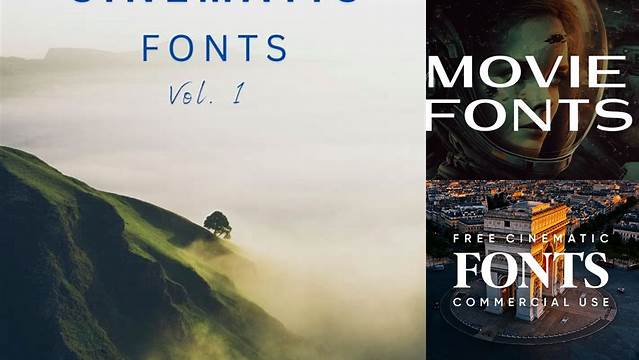
Free Cinematic Fonts Generator: Create Movie Magic!
Hey guys! Ever wanted to give your projects that Hollywood feel? You know, that epic movie title vibe? Well, you're in the right place! We're diving deep into the world of cinematic fonts and how you can snag them for free. Whether you're a budding filmmaker, a graphic designer, or just someone who loves cool typography, this guide is your ticket to creating visual masterpieces. Let's get started and unlock the secrets to stunning cinematic fonts that will elevate your work!
1. What are Cinematic Fonts?
Okay, let's kick things off with the basics. What exactly are cinematic fonts? Think about your favorite movie posters and opening credits. Notice those fonts? They're usually bold, dramatic, and instantly recognizable. Cinematic fonts are designed to evoke the feeling of the movies – think action, suspense, romance, you name it! They often have unique characteristics like strong serifs, elegant curves, or even a futuristic flair. The main goal of cinematic fonts is to grab attention and set the tone for whatever visual you are working on. They’re designed to communicate an emotion, build anticipation, and immerse the viewer in a visual story. Whether it's the bold, authoritative feel of a thriller's title or the graceful elegance of a romantic drama's credits, choosing the right cinematic font is crucial. A cinematic font isn't just about aesthetics; it's a tool that can significantly enhance the visual storytelling of your project. By using a well-chosen font, you can set the mood, emphasize key themes, and create a lasting impression on your audience. So, whether you're designing a movie poster, creating a video intro, or even working on a presentation, understanding the power of cinematic fonts can help you create more impactful and professional-looking visuals.
2. Why Use Cinematic Fonts?
So, why should you even bother using cinematic fonts? Well, imagine trying to make a movie poster with Comic Sans. Cringe, right? The right font can make all the difference! Cinematic fonts add a professional touch, enhance the visual appeal, and help you communicate the tone and genre of your project. Using cinematic fonts can dramatically elevate your creative work by adding a layer of professionalism and visual appeal that standard fonts simply can't match. Think about it: a well-chosen font can evoke a specific mood or feeling, instantly setting the tone for your audience. For instance, a bold, strong font might be perfect for an action movie poster, conveying power and excitement, while an elegant, flowing font might be better suited for a romantic drama, suggesting grace and sophistication. Choosing the right cinematic font is like selecting the perfect musical score for a scene; it enhances the overall experience and creates a more immersive world for the viewer. Beyond aesthetics, cinematic fonts also play a crucial role in branding and recognition. Just like a distinctive logo, a unique font can become synonymous with your project, helping it stand out and leave a lasting impression. Whether you're designing a film poster, creating a video game title, or even working on a marketing campaign, the right cinematic font can help you communicate your message more effectively and make your work truly memorable.
7. Behance: Creative Community Fonts
Behance is a social media platform for creatives, and sometimes designers share free fonts as part of their portfolios. It's a great place to find unique and stylish cinematic fonts, but remember to check those licenses! Behance is more than just a social media platform; it’s a vibrant community where designers and creatives from around the world showcase their work. This makes it an excellent place to discover not only inspiration but also unique design assets, including free fonts. Many designers on Behance generously share their creations as part of their portfolios, offering a diverse range of typefaces that you won’t find anywhere else. This is particularly valuable if you're searching for cinematic fonts with a distinctive and artistic flair. However, as with other font resources, it’s crucial to pay close attention to the licensing terms associated with each font on Behance. While many designers offer fonts for free personal use, commercial use may require a separate license or permission. When browsing Behance for cinematic fonts, it’s helpful to use keywords such as “font,” “typeface,” and “typography” in your search. You can also filter by project type to specifically find font design projects. Pay attention to the descriptions and comments, as designers often provide details about the font’s usage rights and any specific requirements. Fonts that are inspired by classic movie posters, vintage film titles, or iconic cinematic styles are often popular choices among Behance’s free offerings. By engaging with the Behance community and carefully reviewing the licensing information, you can uncover a treasure trove of free and stylish cinematic fonts to elevate your design projects.
8. Understanding Font Licenses
Okay, this is super important. Before you use any font, you need to understand the license. Most free fonts come with specific terms, and you need to respect them. Personal use means you can use the font for your own projects, but not for anything that makes money. Commercial use means you can use it for commercial projects, like a movie poster you're selling. Some licenses may also have other restrictions, like not being able to embed the font in a document or modify it. Understanding font licenses is a crucial aspect of using typefaces legally and ethically. Font licenses are legal agreements that outline how a font can be used, and they vary widely depending on the designer or foundry. Ignoring these licenses can lead to copyright infringement, which can have serious consequences, including legal action and financial penalties. There are two primary types of font licenses: personal use and commercial use. Personal use licenses typically allow you to use the font for non-profit projects, such as school assignments, personal websites, or hobby projects. Commercial use licenses, on the other hand, permit you to use the font in projects that generate revenue, such as movie posters, advertisements, or product packaging. Many free fonts come with personal use licenses, which means you cannot use them in any project where you intend to make money. It's essential to carefully read the license agreement to understand the specific terms and conditions. This includes restrictions on embedding the font in digital documents, modifying the font, or redistributing it. Some commercial licenses may also have limitations, such as a maximum number of users or a specific term of use. By taking the time to understand font licenses, you can ensure that you are using typefaces legally and ethically, avoiding potential legal issues and supporting the designers who create these valuable resources. Whether you’re downloading free cinematic fonts or purchasing a premium typeface, always make licensing a priority.
9. Personal Use vs. Commercial Use
Let's break this down further. Personal use is for fun projects that don't make money, like a birthday invitation for a friend. Commercial use is for anything you're selling or using to promote a business, like a movie poster or a website for your company. Knowing the difference is key to staying out of legal trouble. The distinction between personal use and commercial use is fundamental when it comes to font licensing and usage rights. This understanding dictates whether you can legally use a particular font in your creative projects without facing potential legal repercussions. Personal use refers to using a font for projects that are not intended for profit or commercial gain. This includes activities such as creating invitations for private events, designing personal blog graphics, or working on school assignments. In these cases, a font licensed for personal use is perfectly acceptable, as long as the project remains non-commercial in nature. On the other hand, commercial use pertains to projects that are intended to generate revenue or promote a business, product, or service. This encompasses a wide range of applications, including designing logos for companies, creating marketing materials for products, or using fonts in a website that promotes a commercial enterprise. When working on commercial projects, it's essential to use fonts that are licensed for commercial use. Using a font with a personal use license in a commercial project is a violation of the license agreement and can lead to legal issues. Many free font websites offer fonts under different licenses, so it's crucial to carefully read the terms and conditions before using a font. Understanding the difference between personal and commercial use ensures that you're respecting the intellectual property rights of font designers and foundries. Whether you're designing a cinematic movie poster or crafting marketing materials for a business, always verify the font license to ensure compliance.
10. Top Cinematic Font Styles
So, what kind of fonts scream